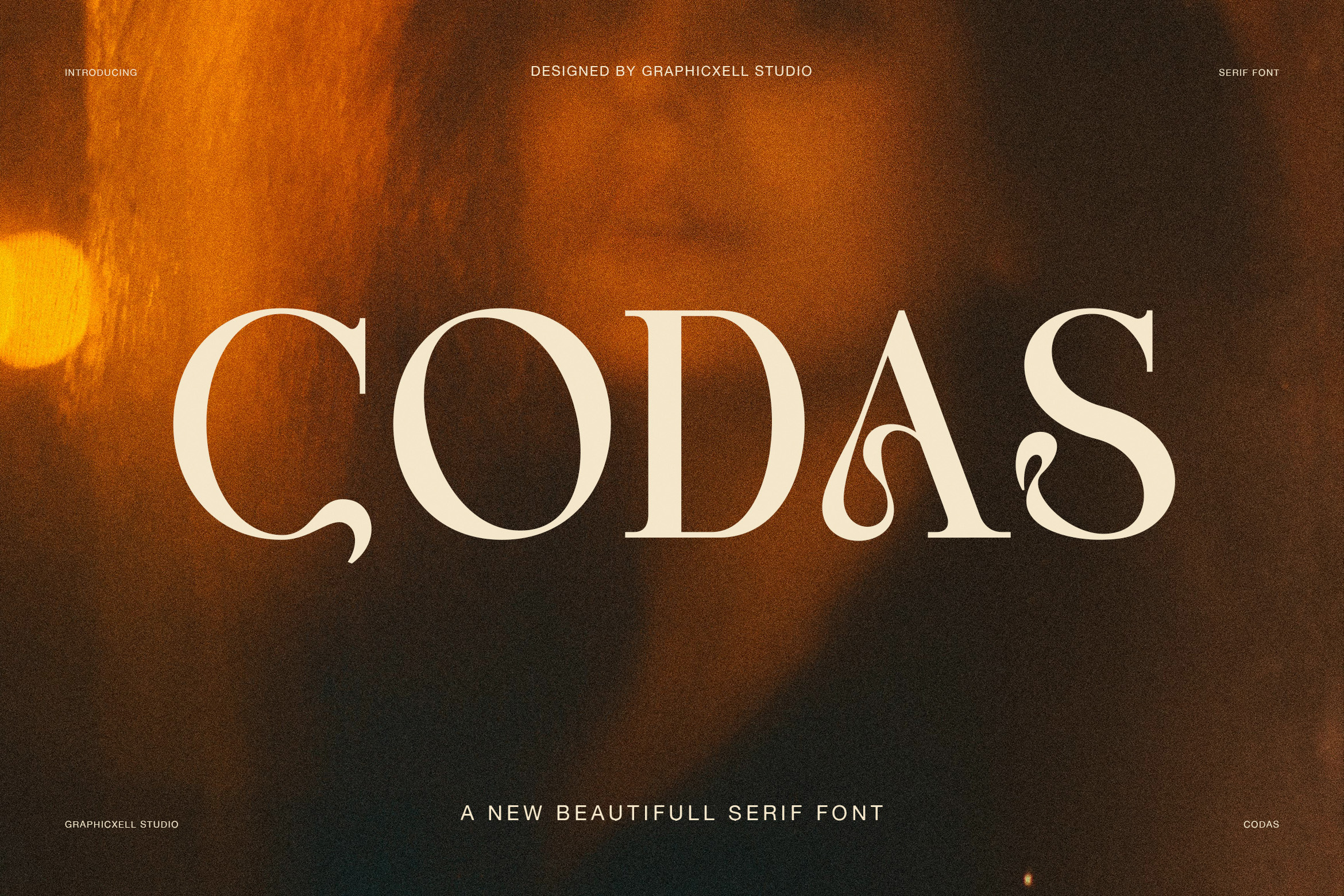
- CODAS Elegant Serif Font
Elegant Editorial Serif Font for Modern Design
CODAS is an elegant editorial serif font with a bold fashion feel and fine classic details. Its high contrast strokes create a strong look, while thin hairlines add a clean and refined touch. At the same time, the curved serif shapes give each letter a soft, stylish edge.
CODAS is made for large type and visual layouts. Its tall forms stand out in headlines, while the slim details add a premium feel. Therefore, it works well when a design needs a clear focal point. The font also keeps a strong balance between classic serif style and modern fashion appeal.
Luxury Typography for Fashion and Branding
This elegant editorial serif font fits many luxury projects. Moreover, its sharp lines and smooth curves work well for brands that want a rich and confident look. The alternate characters add more choice, so designers can create a custom word style without losing the main character of the font.
Editorial Style with Alternate Characters
The alternate set gives CODAS an extra layer of style. Several letters feature curved tails and decorative forms. As a result, words can feel more personal and eye-catching. These options are useful for logos, titles, invitations, and display text where small details matter.
In addition, the font includes uppercase letters, numbers, and punctuation. This makes it easy to build a full display system for brand work. The letter shapes also pair well with simple sans serif fonts. Therefore, you can use CODAS for the main title and a clean sans serif for body text.